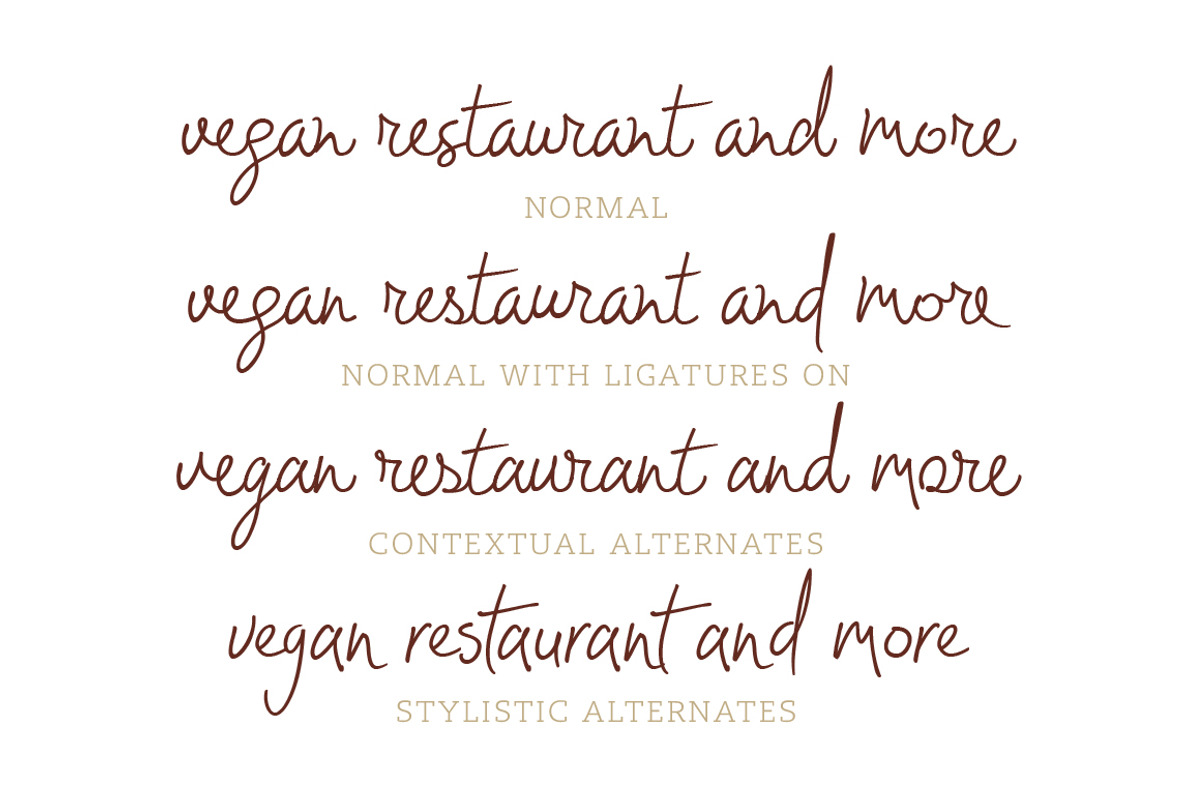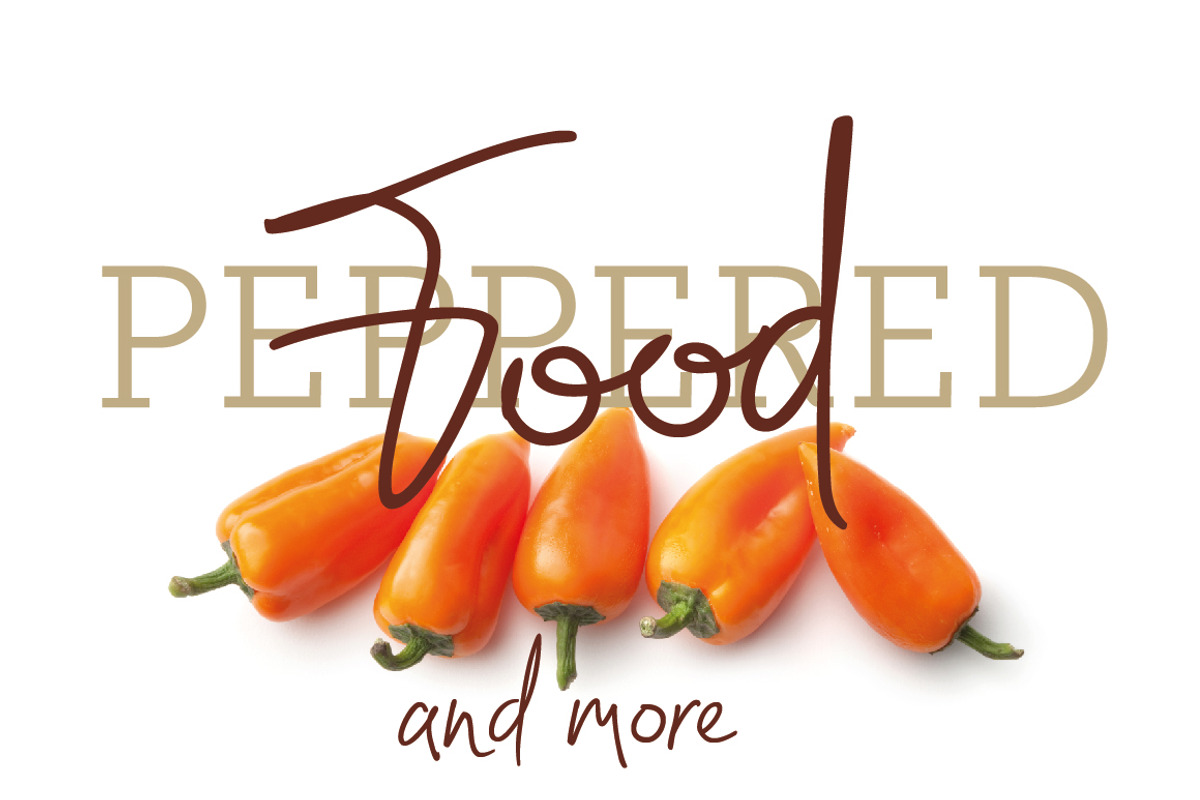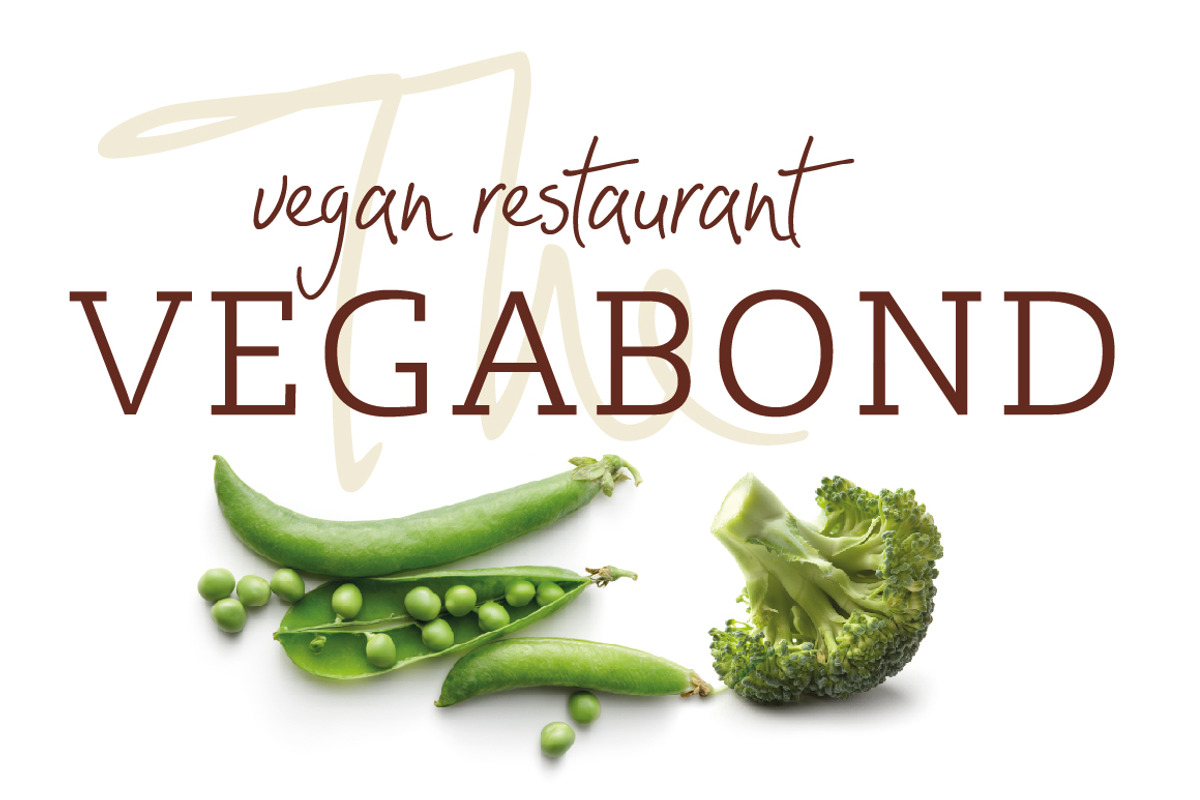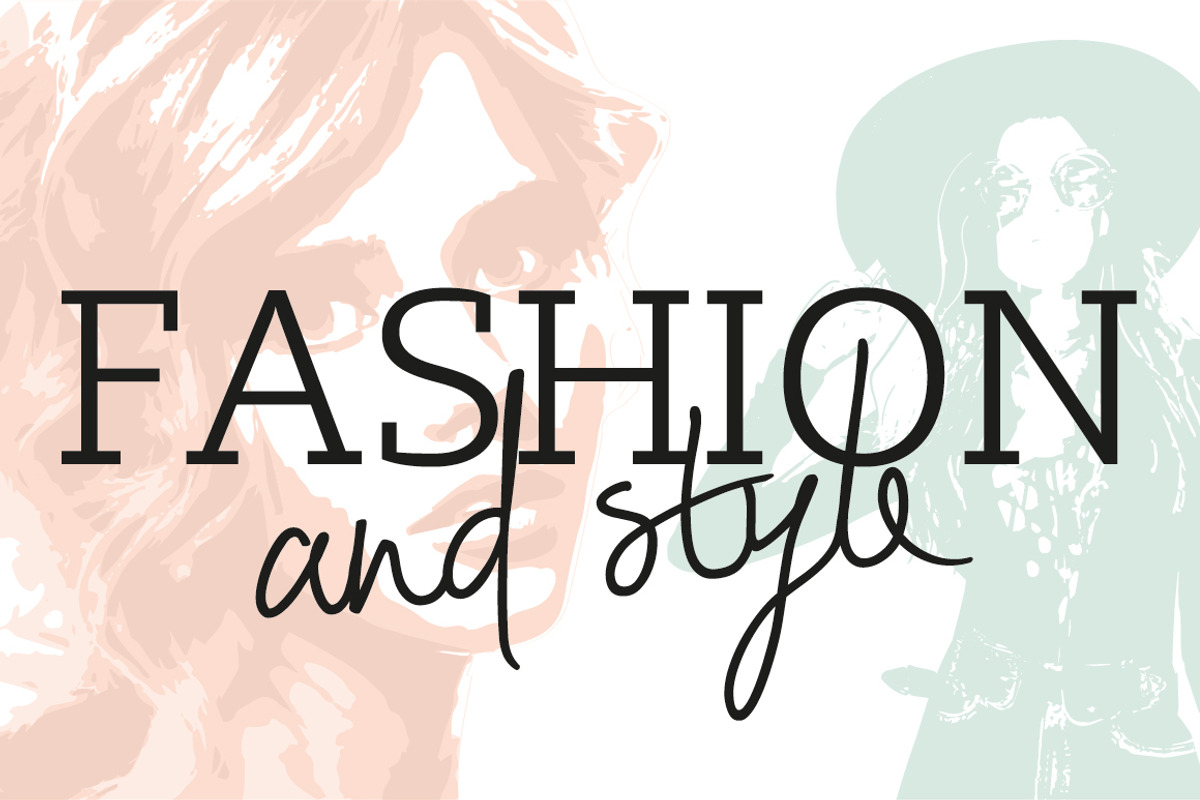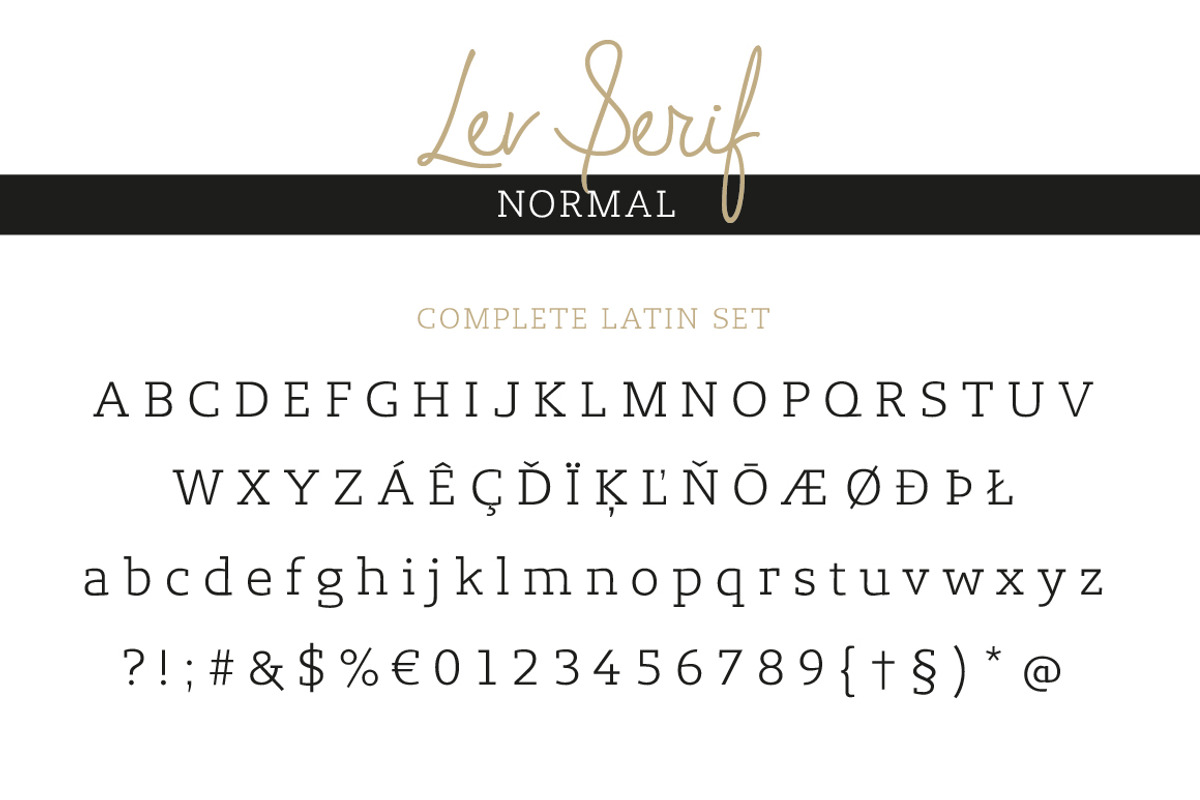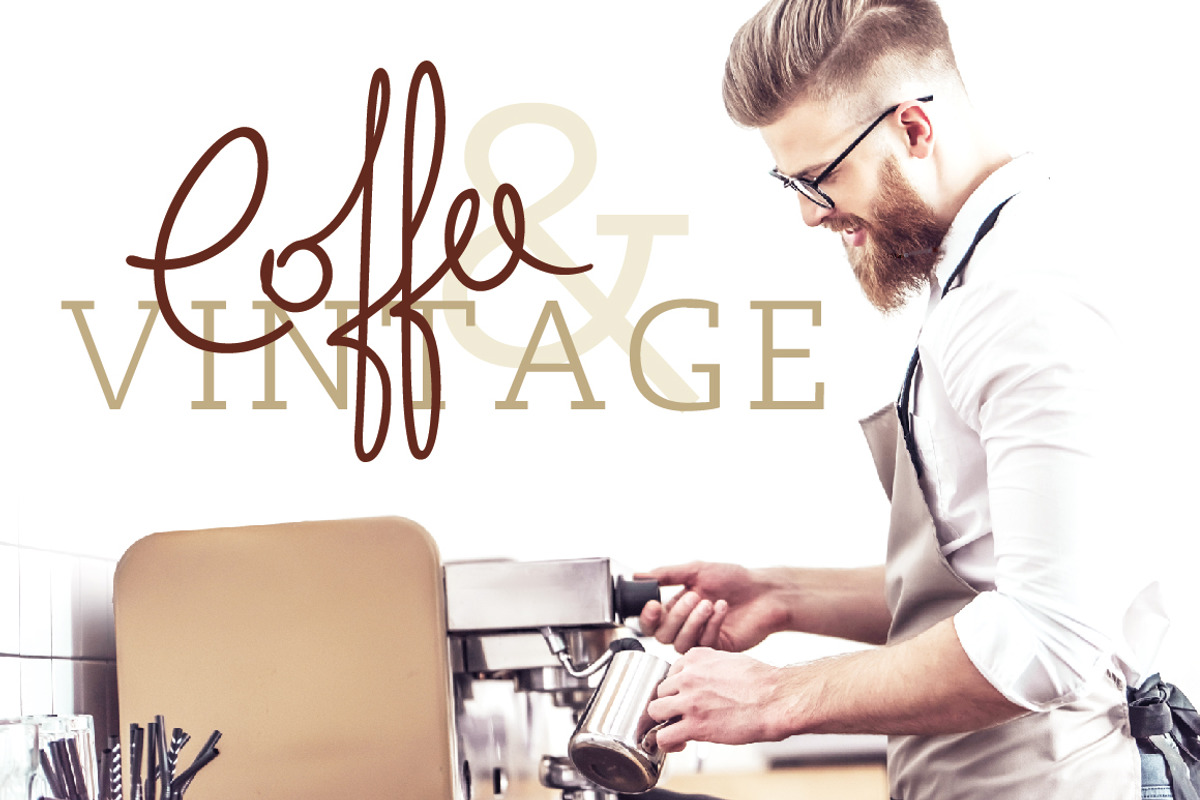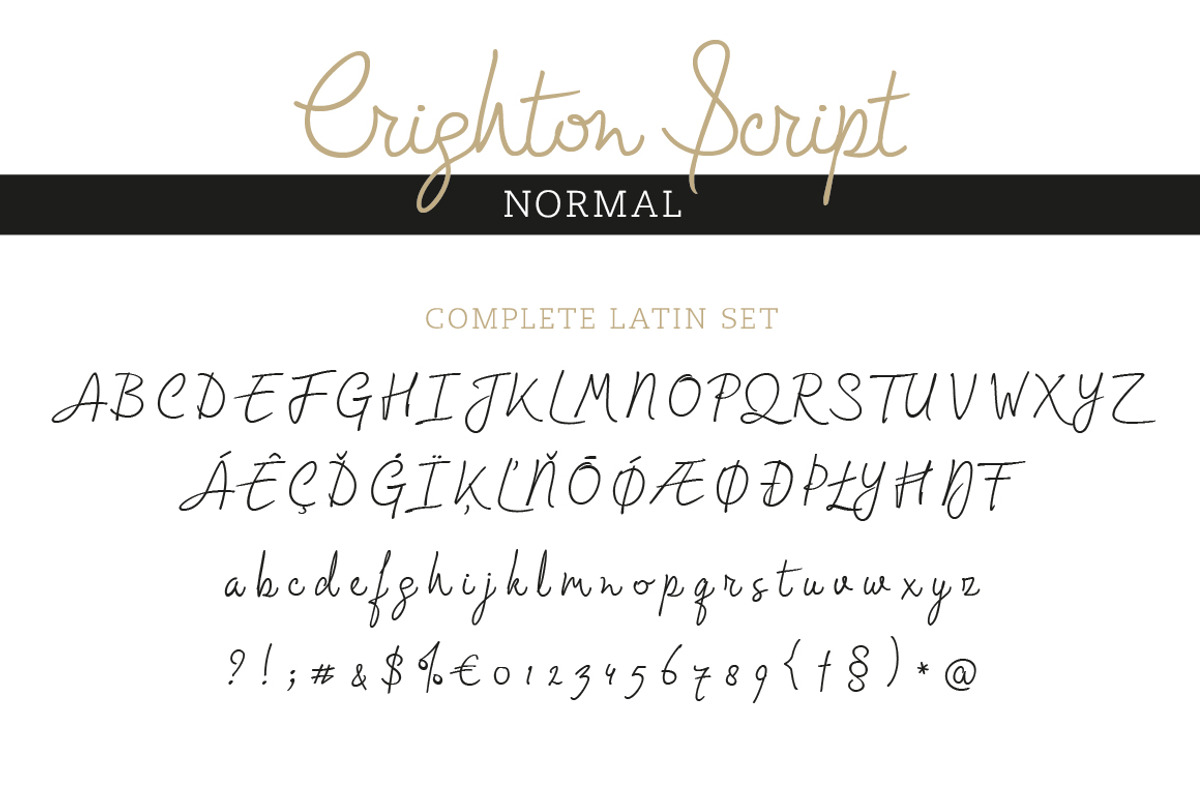
Crighton+Lev Duo Font Pack a fine combination of a script and a slab serif font. Crighton contains a large range of characters. With the OpenType features of your application you can release the alternate characters. Crighton+Lev is a beautiful typographic combination for your most creative design projects such as logos, wedding cards, advertisements and product designs.
Alternate characters:
With the contextual and stylistic alternates you can choose different styles. Use the OpenType panel or the Glyph panel.
Titling caps will change all capitals with more expressive ones. Use the OpenType panel or the Glyph panel.
Endings are the characters at the end of a word, use the ligature feature to activate them.
Some Tail you can find in the glyph panel.
- Crighton Regular
- Lev Serif Light